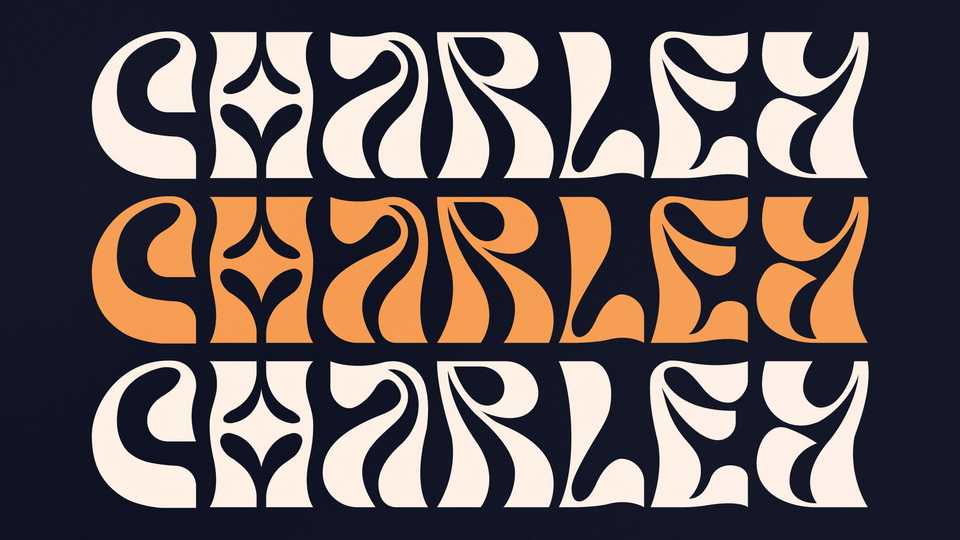
Download Charley font, a funky and groovy display typeface that has own unique style and modern look. Charley font is perfect for logo and branding, book or movie title design, fashion, magazine, clothes, lettering, quotes, and so much more.